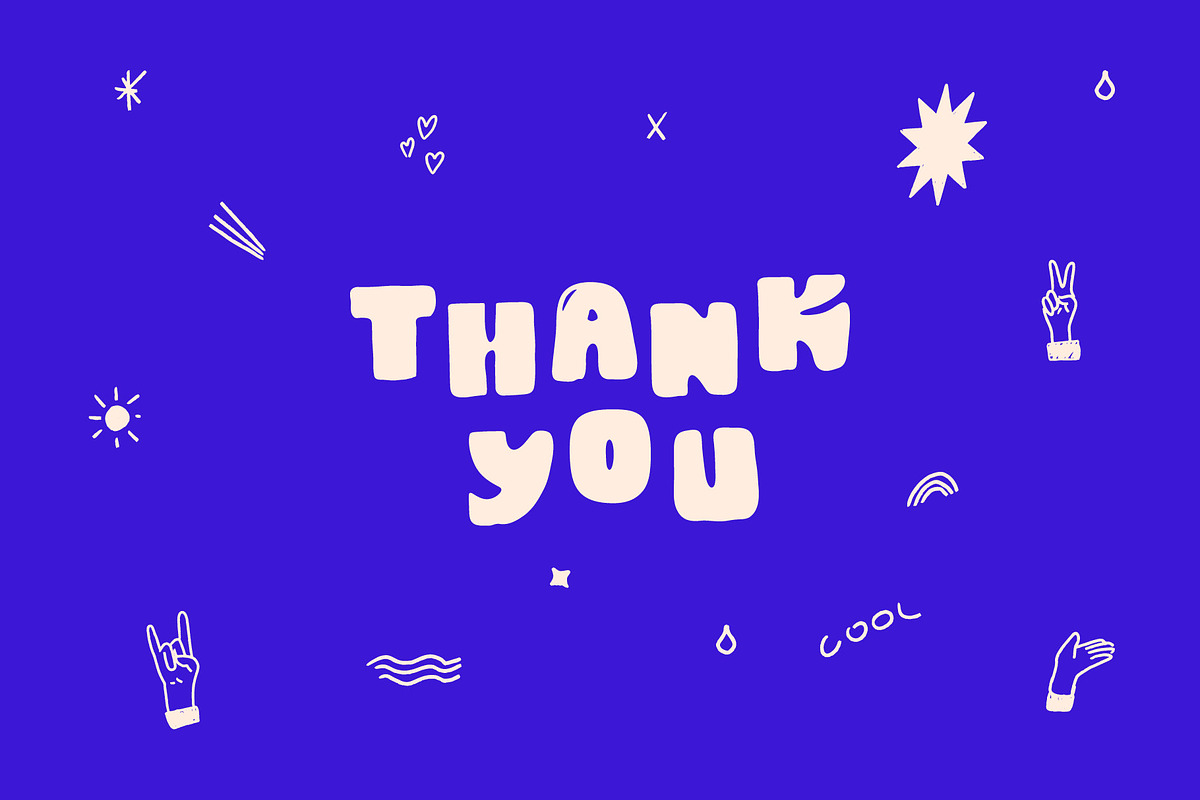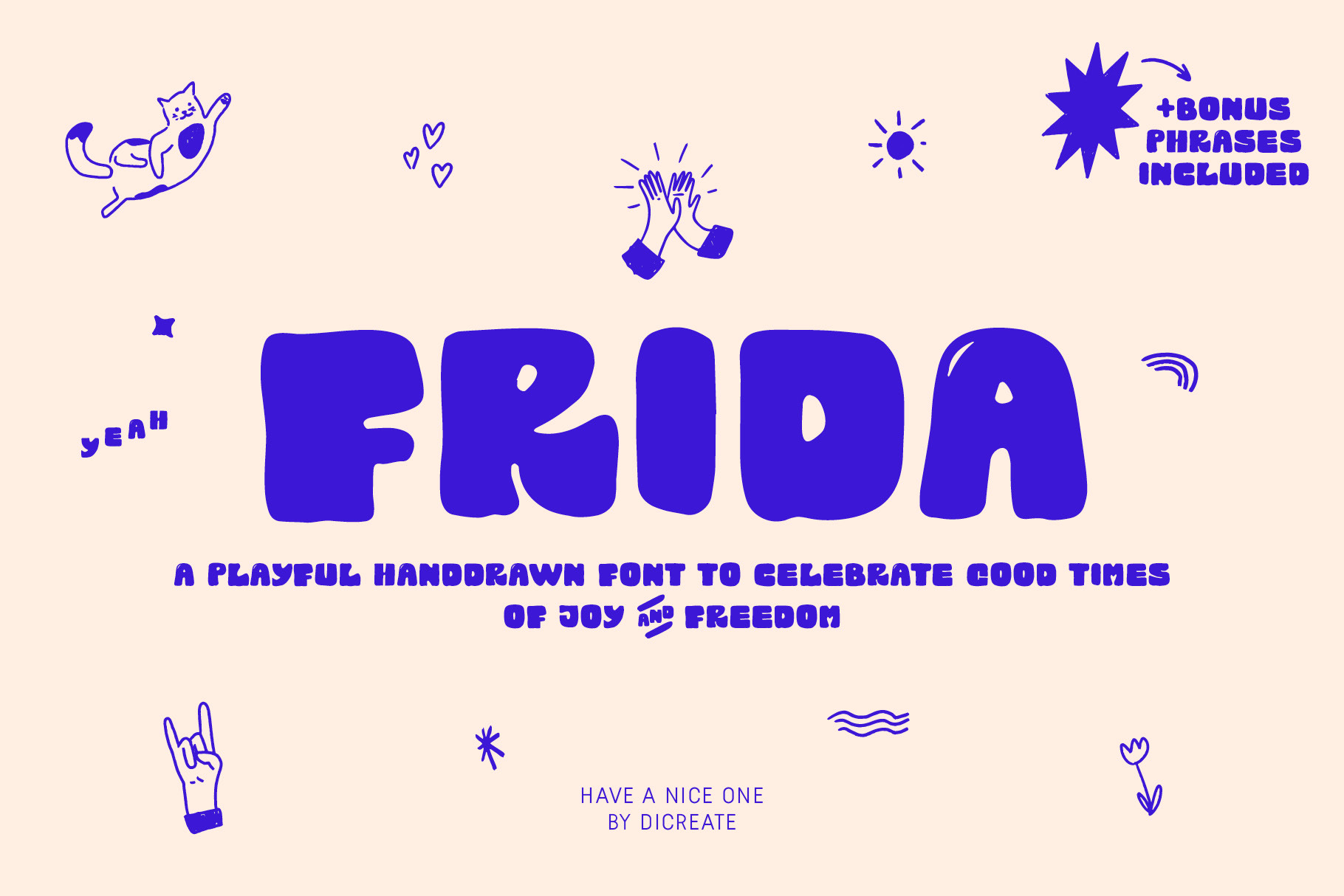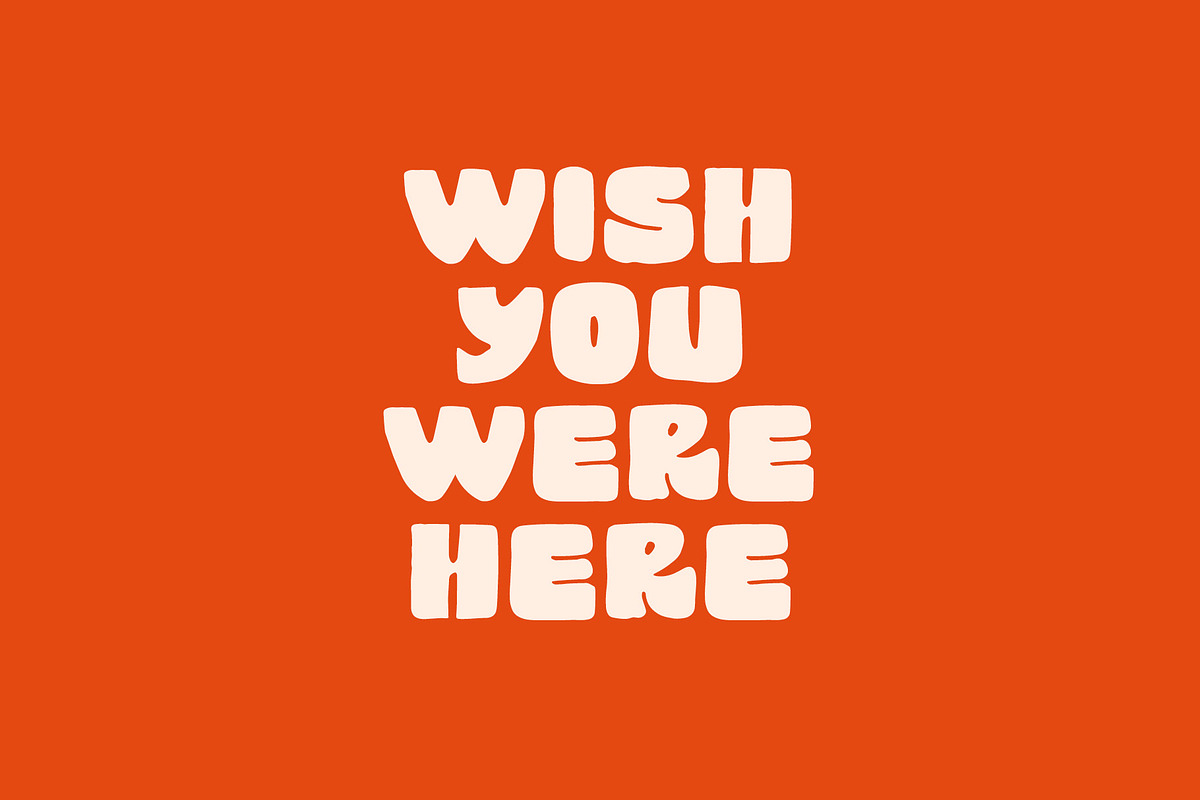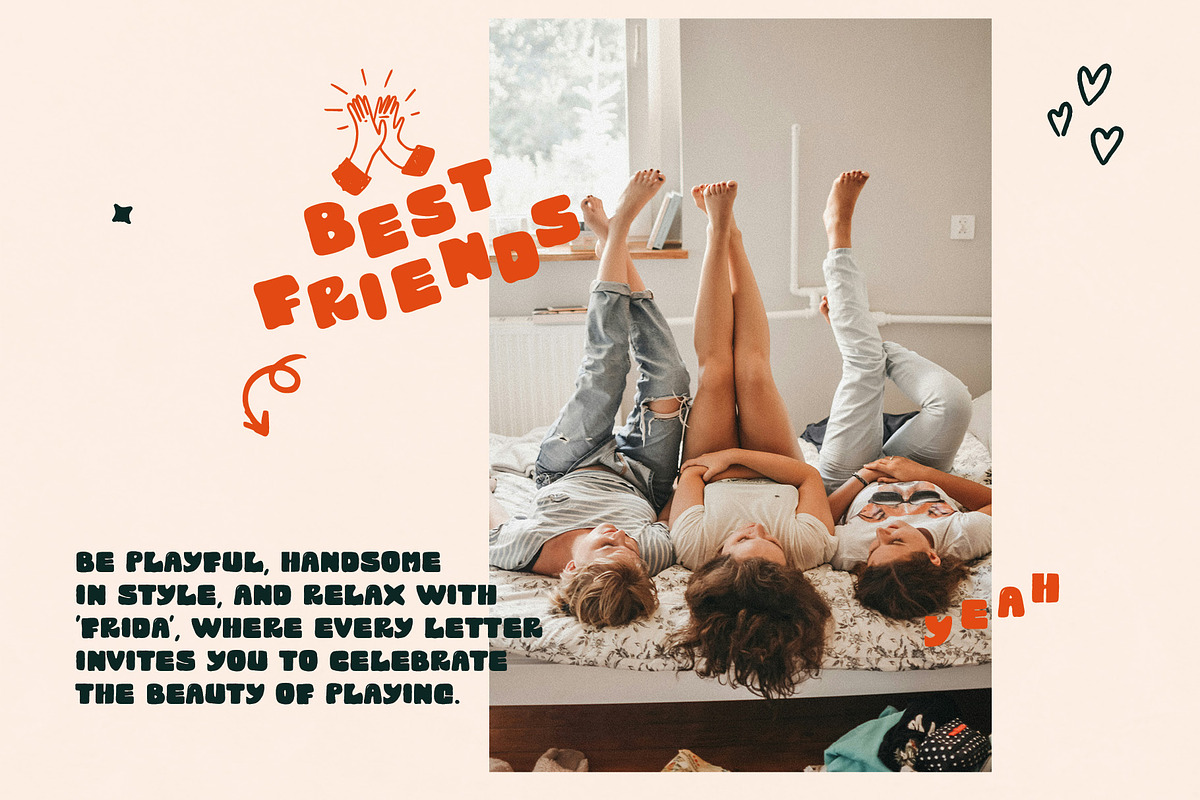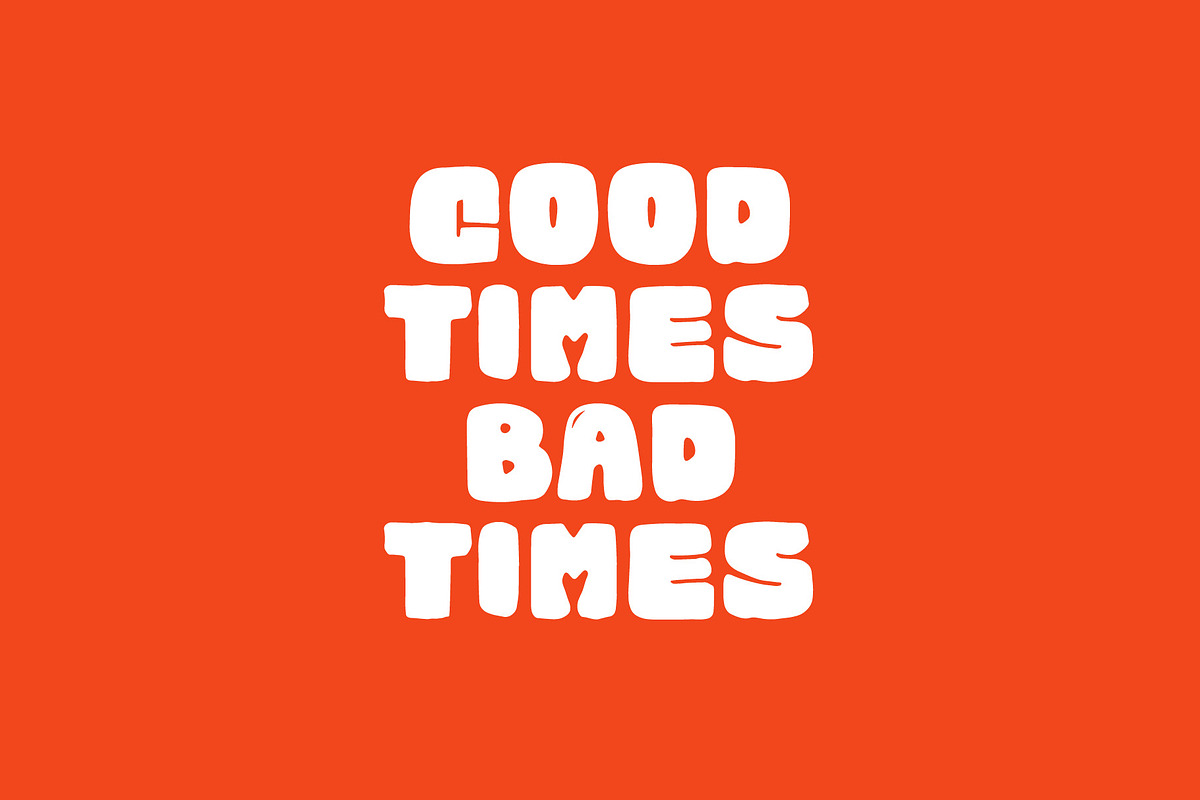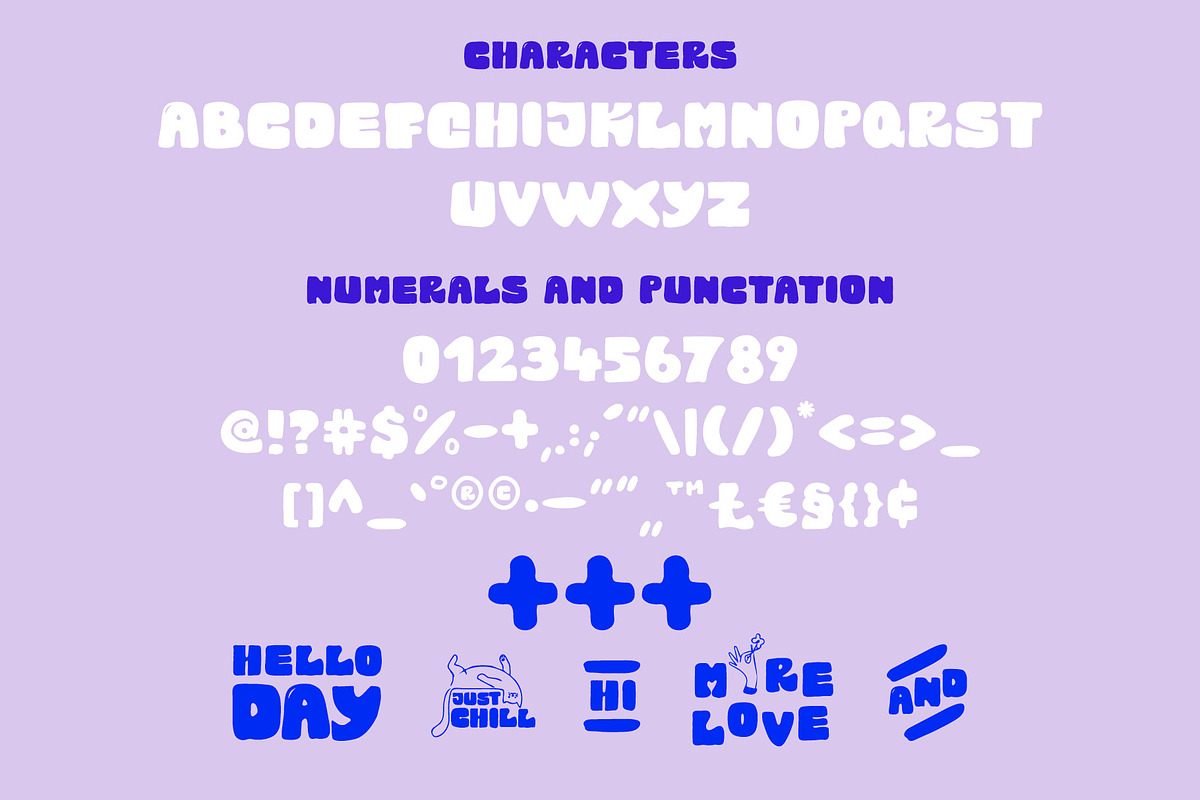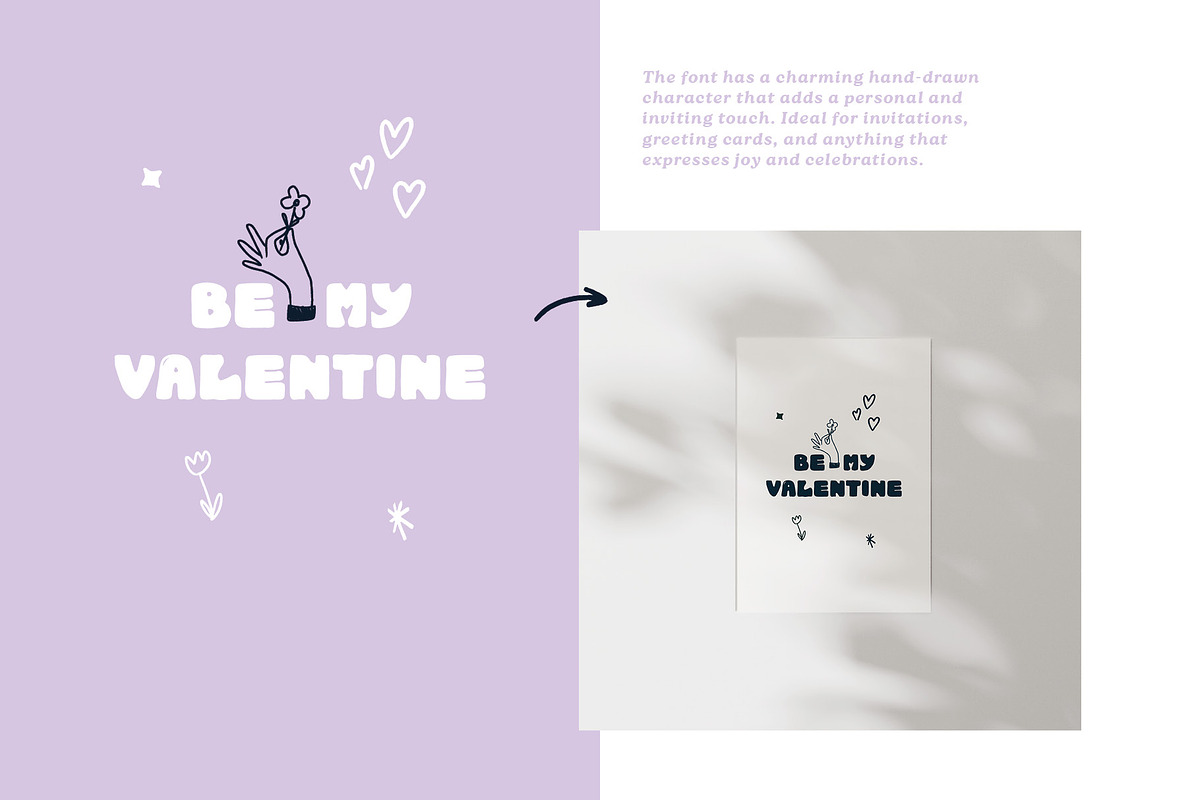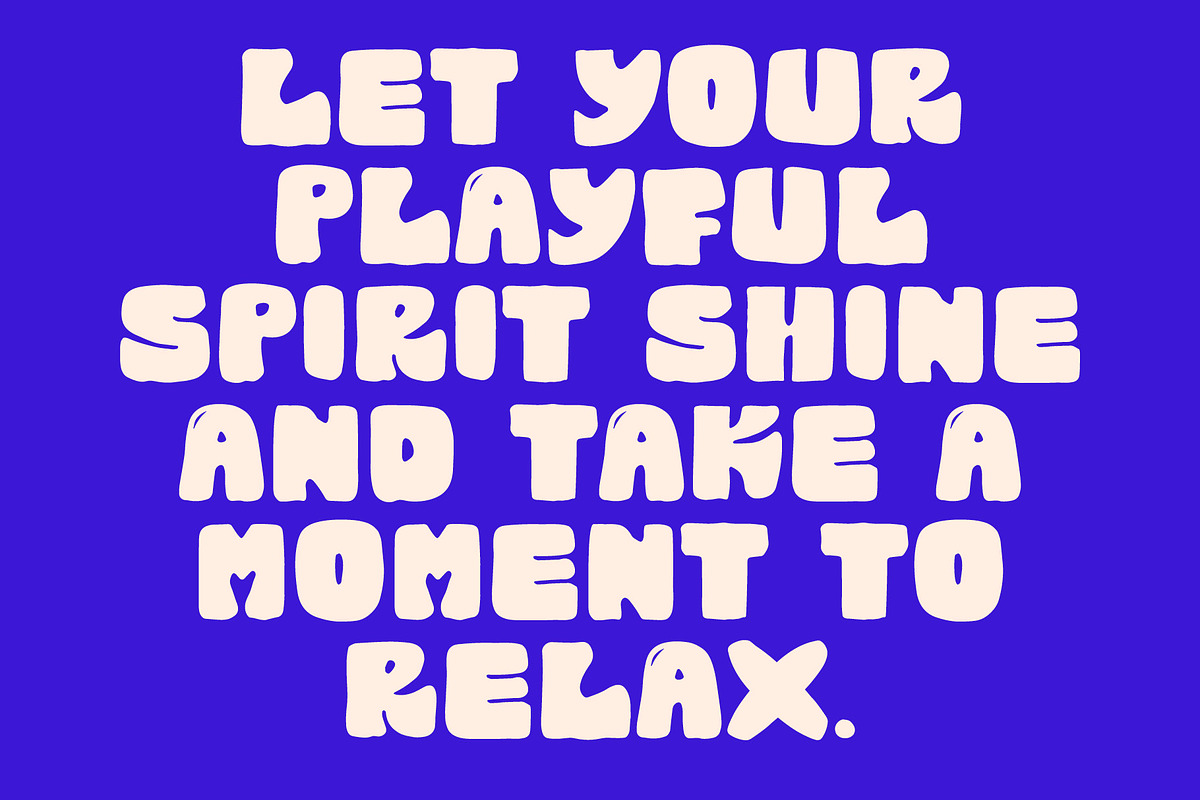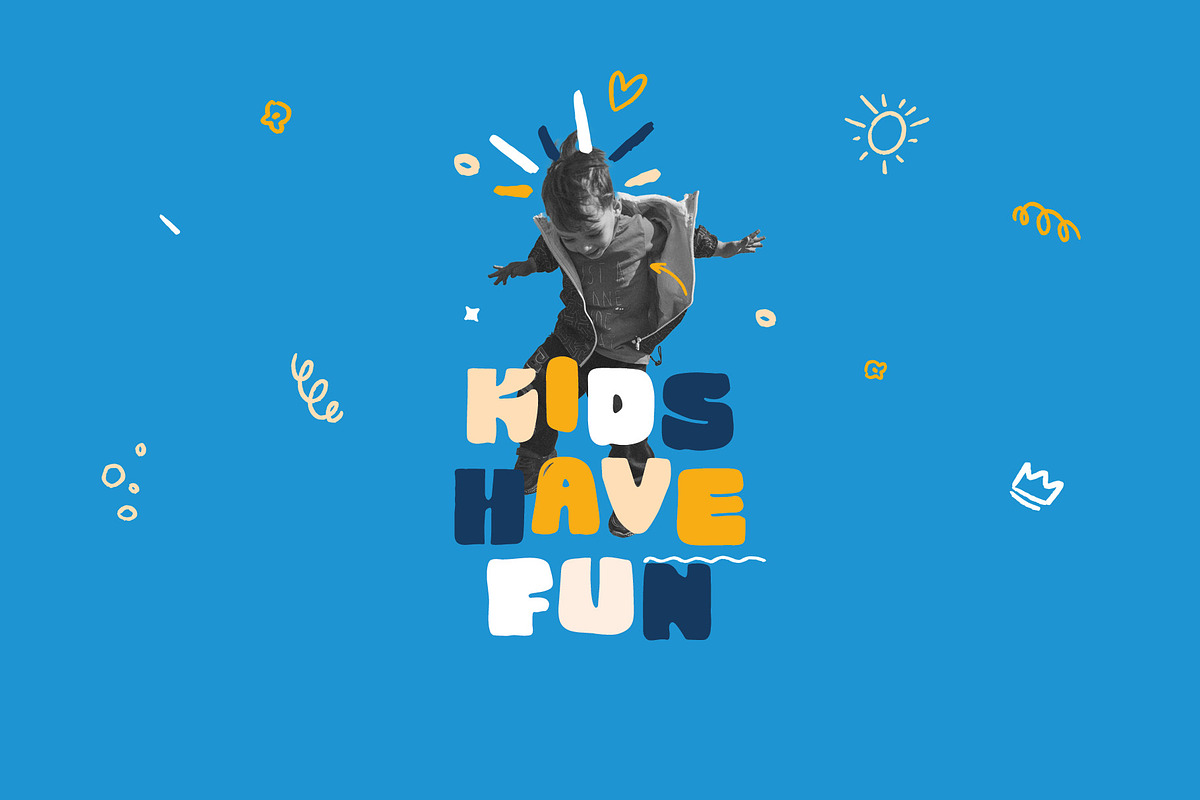
Frida - playful font
Frida. A playful font With 'Frida', you don't just design – you BE HANDSOME effortlessly and relax into a world of expressive, carefree typography.
Perfect for quotes, packaging, invitations, greeting cards, branding and all the other sweet things you have in your mind.